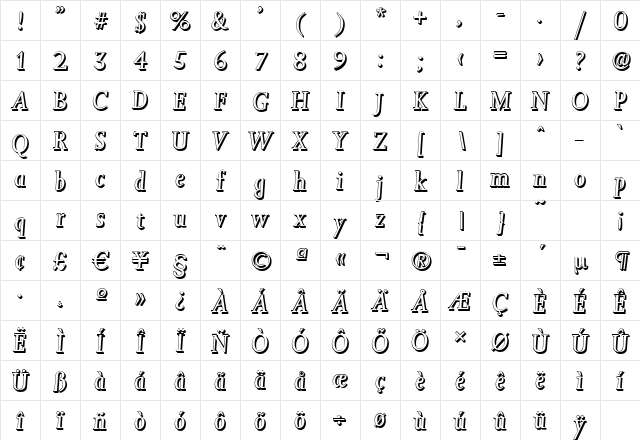
JessicaShadow Italic
JessicaShadow Family
Complete JessicaShadow Italic glyph index. Displaying only characters natively supported by JessicaShadow Italic font.
Design Context for JessicaShadow
JessicaShadow is built around its visual character rather than neutral utility - its distinctive forms are designed to make an impression at display sizes. The slanted form adds forward momentum and visual energy.
Font Pairing: Pair with a clean neutral sans-serif for body copy to let JessicaShadow's character lead without overwhelming the composition.
Pro Tip: Use JessicaShadow exclusively at display sizes - it was designed to be seen, not read at length. Let a neutral companion handle body copy.